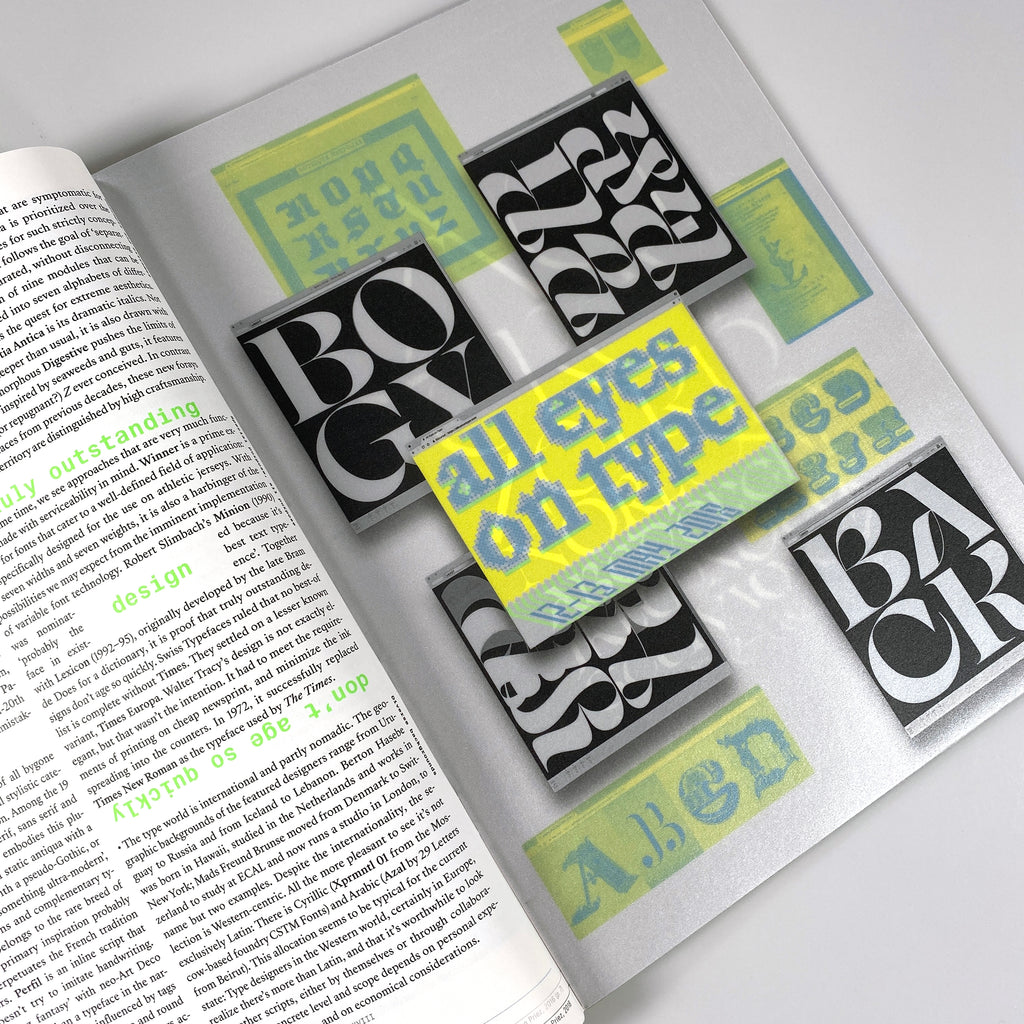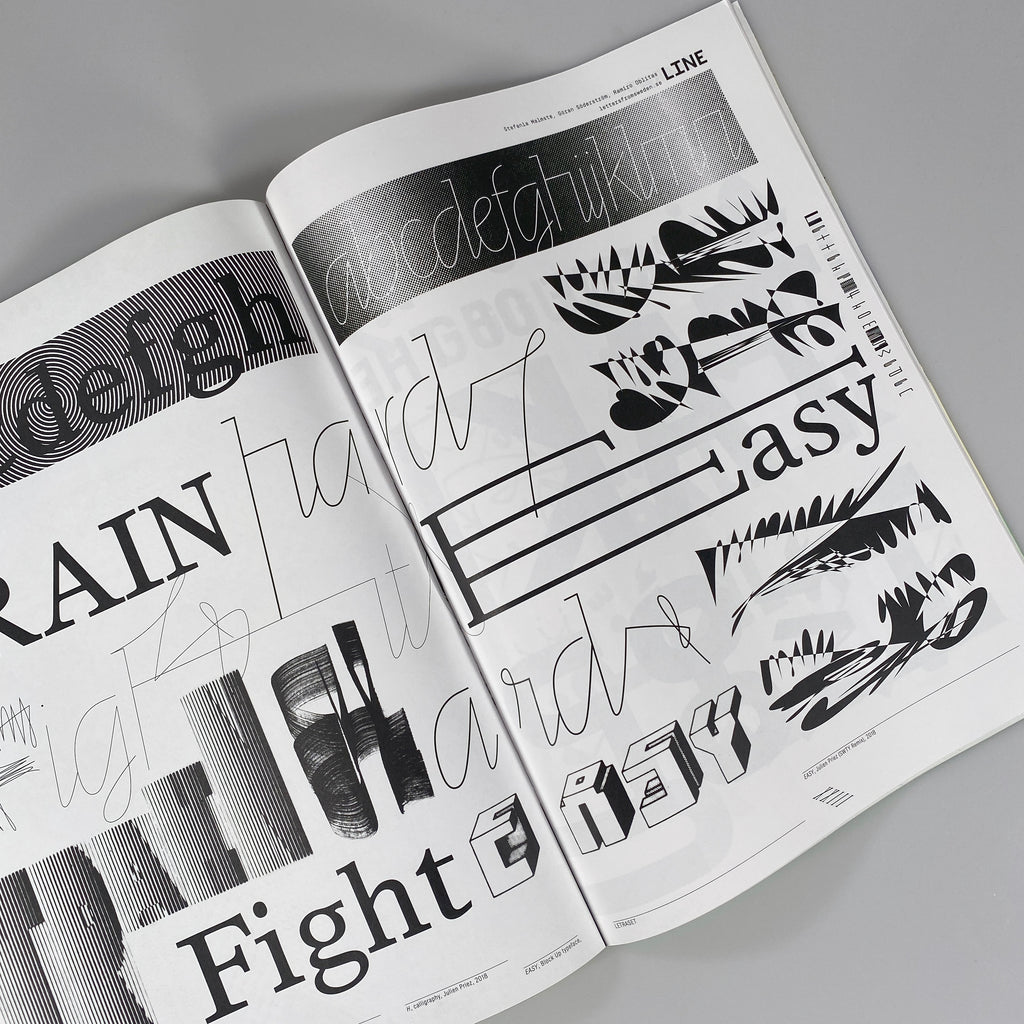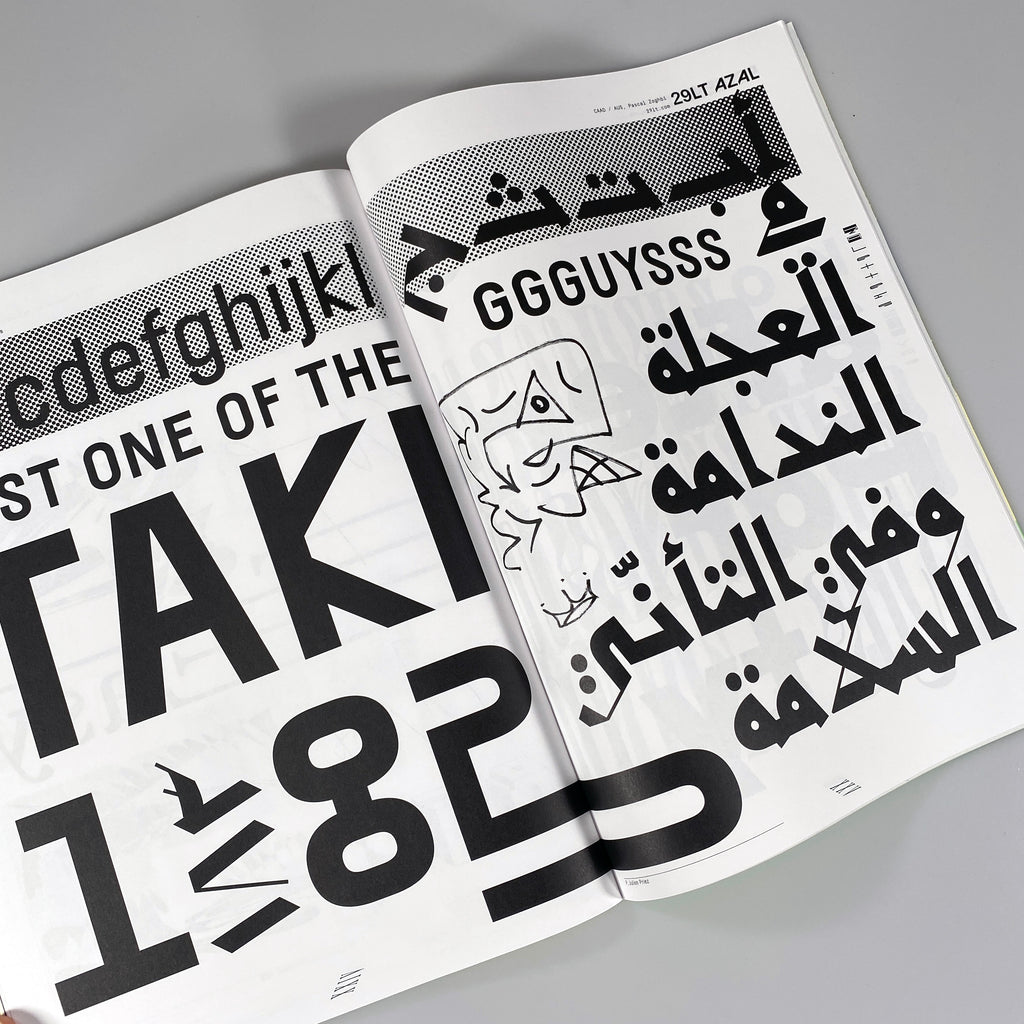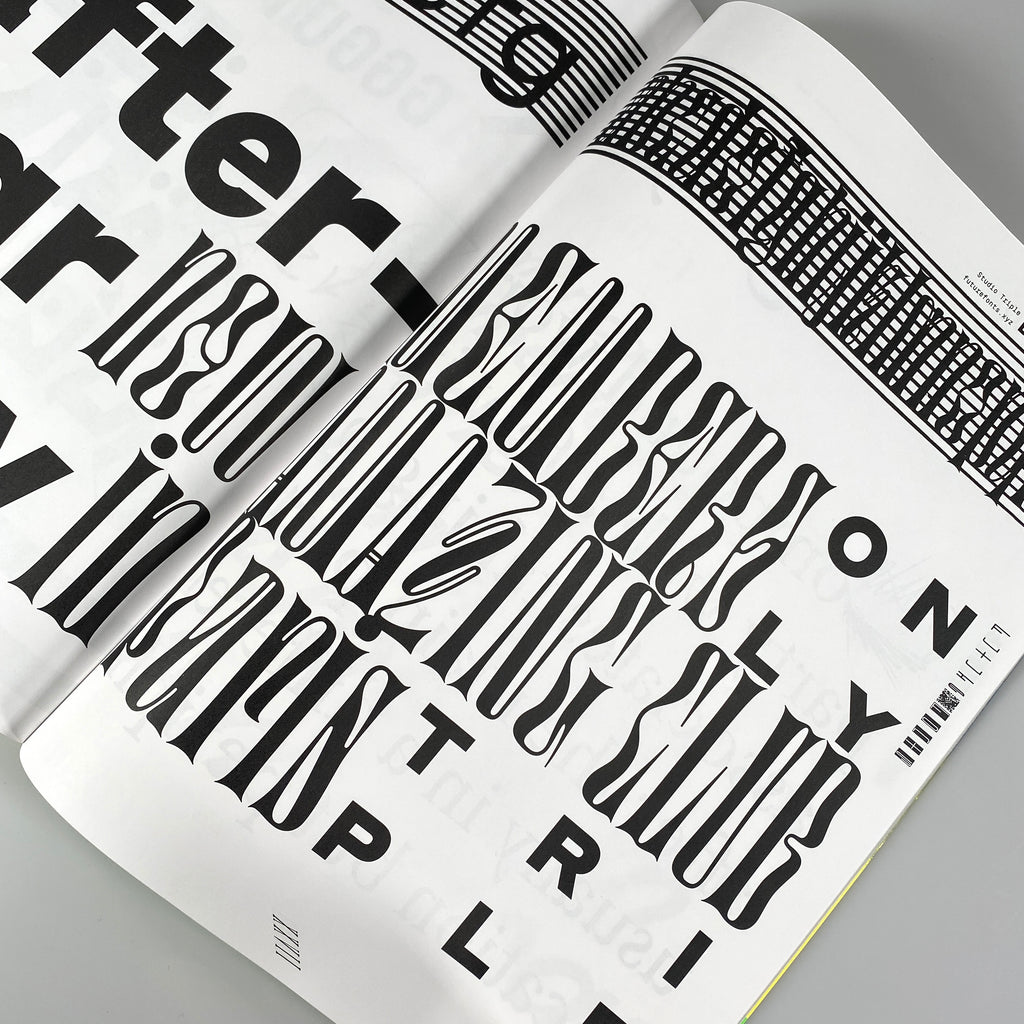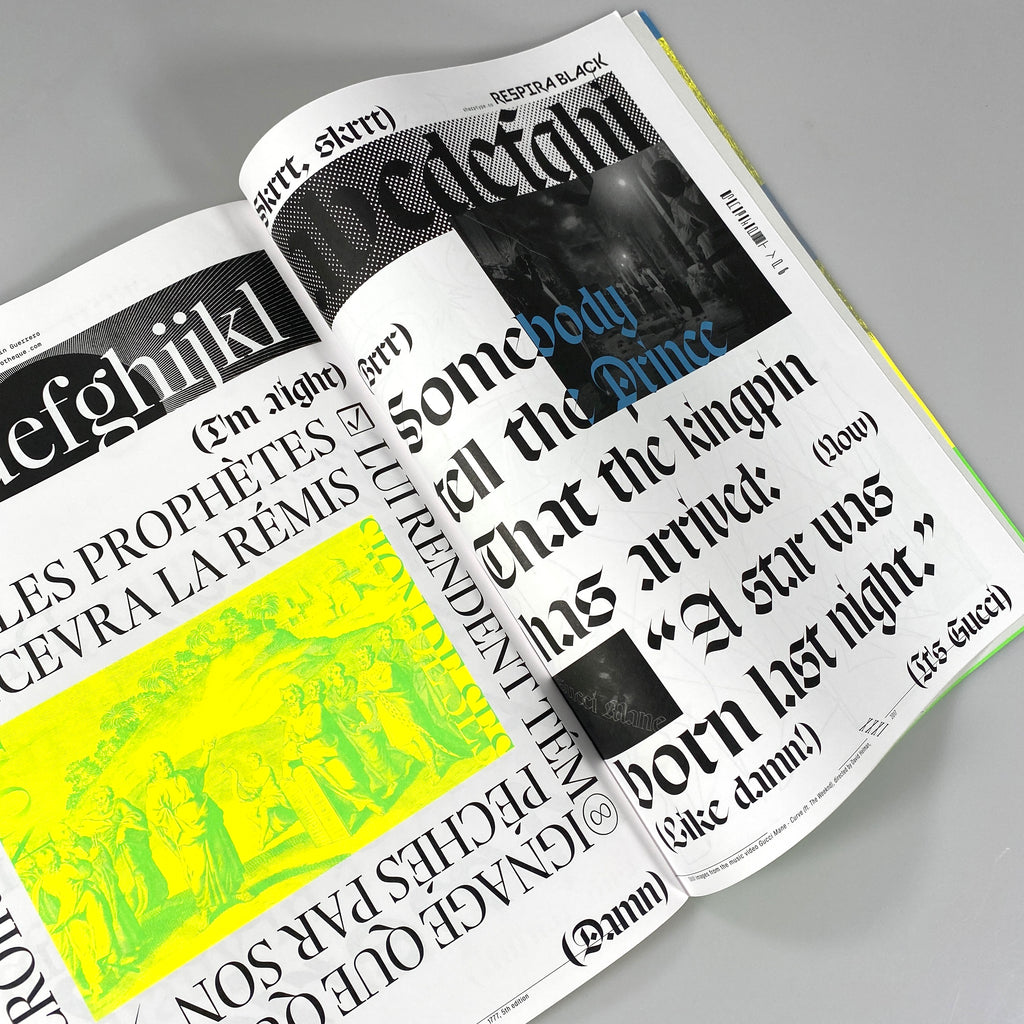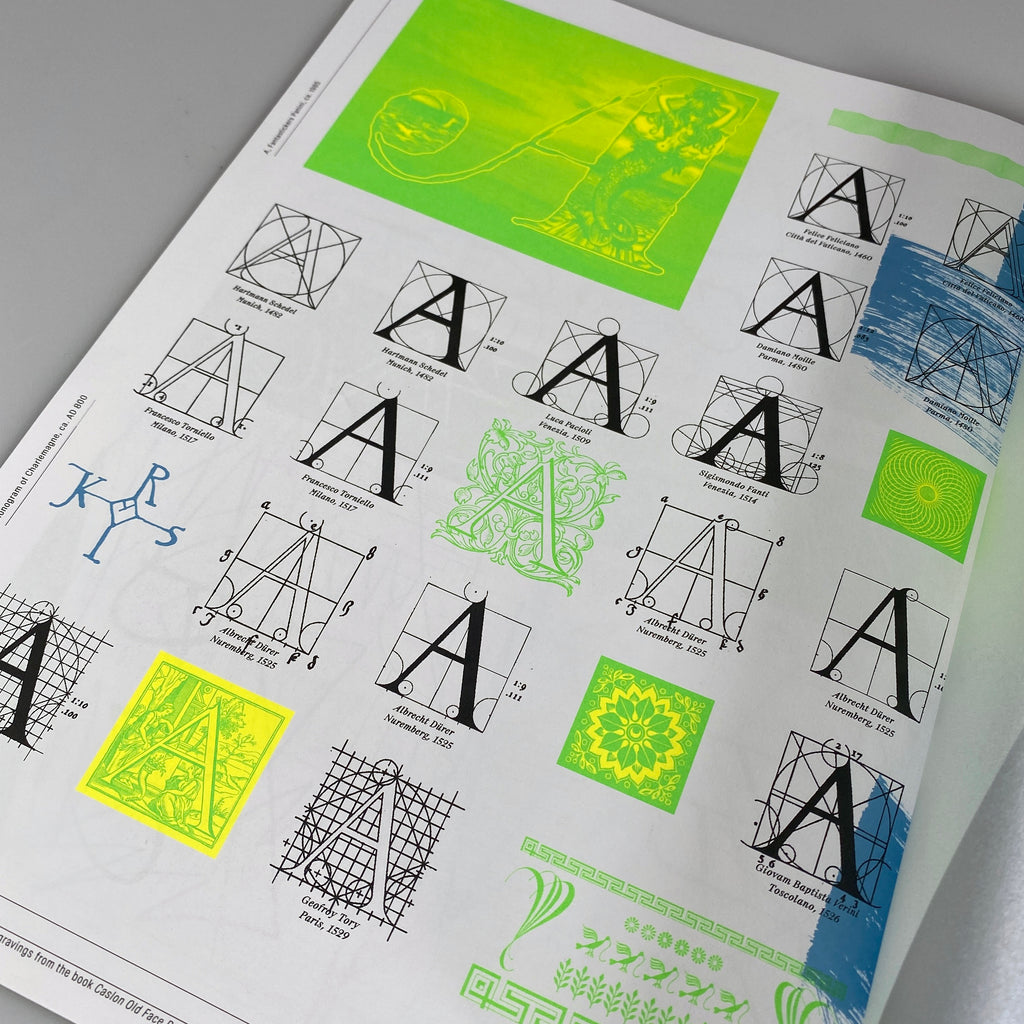
Type Life: Issue #3 - Non-Swiss Typefaces We Like, 1569–2018
In the third issue of Type Life, Swiss Typefaces take a look beyond their own work and celebrate contemporary type made by others.
The Swiss design studio compiled a selection of their favorite typefaces, licensed the fonts and used them to design the latest issue. The resulting specimen of “Non-Swiss Typefaces We Like 1569–2018” comes with a text by Florian Hardwig (Fonts In Use) and is visually enriched with works by lettering artist Julien Priez (boogypaper).
Type Life 3 showcases 19 fonts from 19 international foundries: 29Letters, Adobe Type, Commercial Type, CSTM Fonts, Dinamo Typefaces, DSType, Extrabrut.Shop, Future Fonts, Hoefler & Co., Letters From Sweden, Linotype, Milieu Grotesque, Or Type, Production Type, Sharp Type, Sportsfonts.com, The Enschedé Font Foundry, Typotheque, and Velvetyne Typefoundry—a representative sample for the diversity in type design and gives an illuminating overview of the current scene.
While the majority of the fonts were released in the past few years, many draw inspiration from all sources from previous eras. There is blackletter, script, slab serif, sans serif, and more. These themes—a stress on newness, historical references, and a vast stylistic plurality—reflects three major trends in today’s typography, as Florian Hardwig points out in his introduction. Other recurring themes that he identifies as being symptomatic for 2018 include highly conceptual projects and a quest for extreme aesthetics. At the same time there are functional fonts designed to solve specific problems.
Just like the fonts, the type designers who created them have diverse backgrounds, in terms of geography, or how they entered the field. Represented distribution models range from traditional licensing to subscriptions, free and open-sourced fonts, as well as experimental or even unfinished releases.
Designed, edited, and art directed by Swiss Typefaces
Handwriting and calligraphy by Julien Priez, and text by Florian Hardwig
Published by Swiss Typefaces, 2018
40 pages, 6 Pantone colors, offset printing, loop staples binding, 9.5 × 12.6 inches